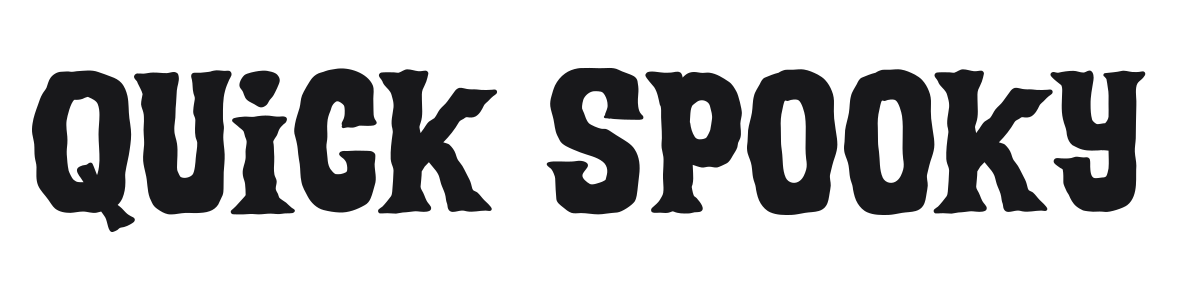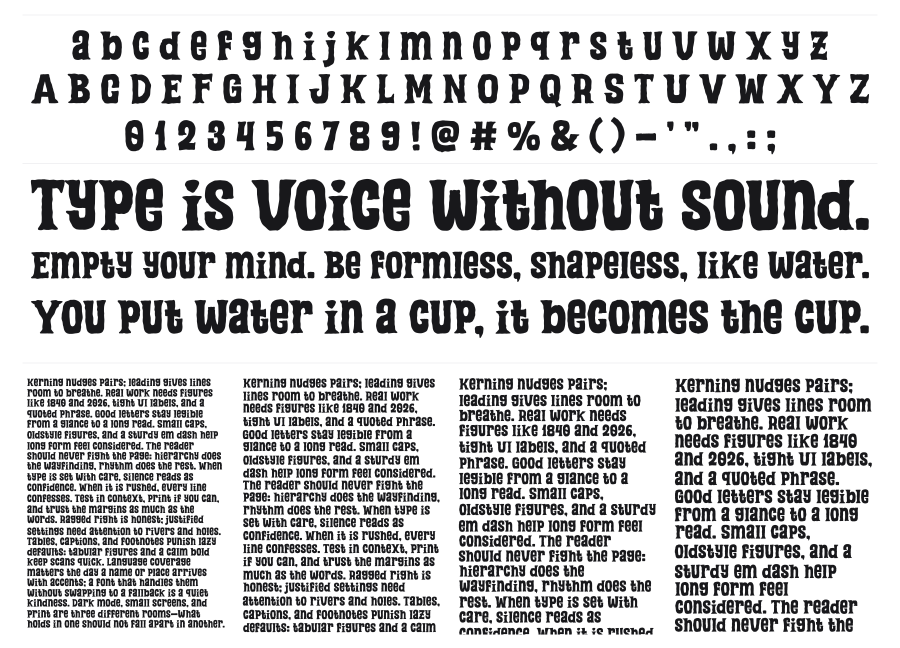
Quick Spooky
Quick Spooky is a heavy retro-horror display font with thick stems, high stroke contrast, and curling serifs that nod to 1960s psychedelic lettering. The characters have a playful, hand-crafted quality with notched junctions and bulging details that feel genuinely spooky without being aggressive. Strong at poster sizes, title cards, and Halloween branding.